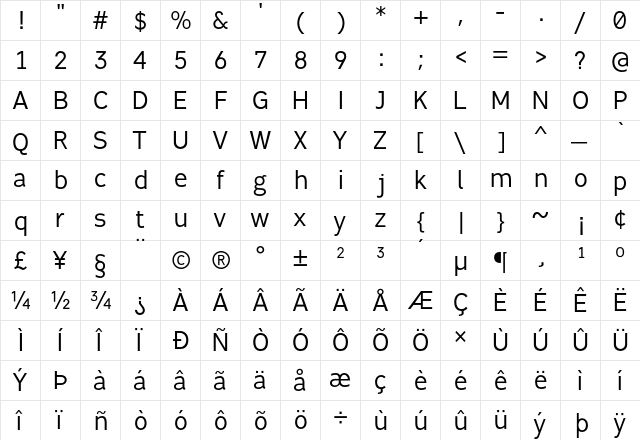
Fabrica Regular
| Foundry | Alvin Kwan |
| Designer | Alvin Kwan |
Design Context for Fabrica Typeface
Fabrica is a composed and adaptable typeface that performs quietly and consistently across a wide range of design contexts.